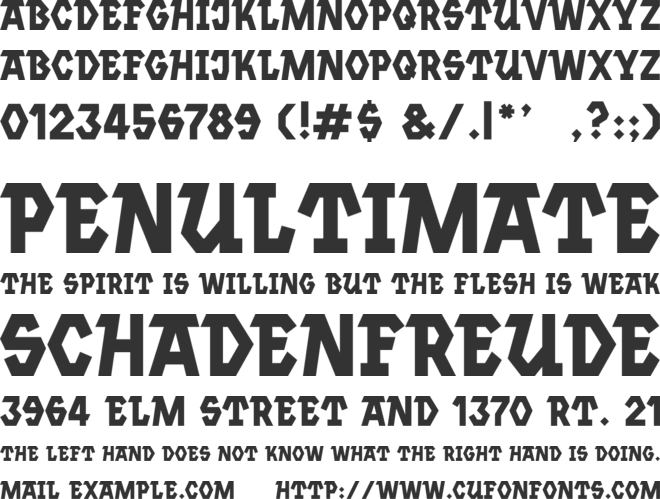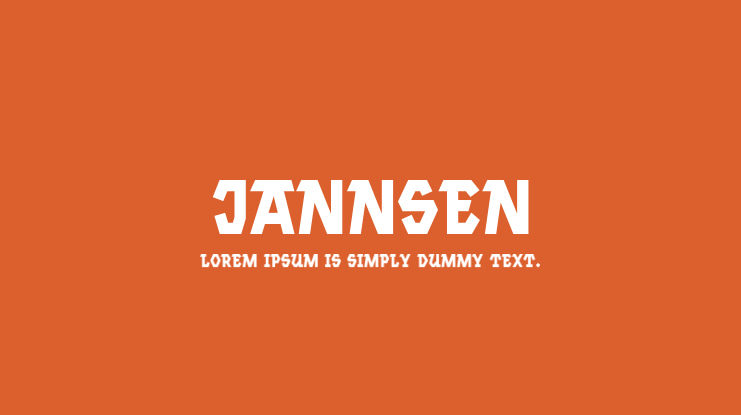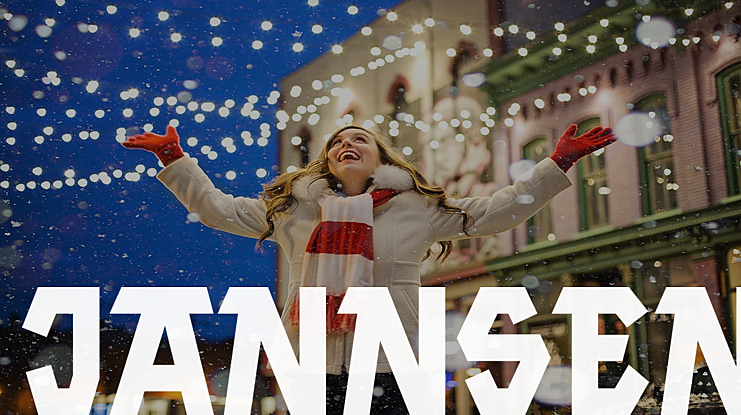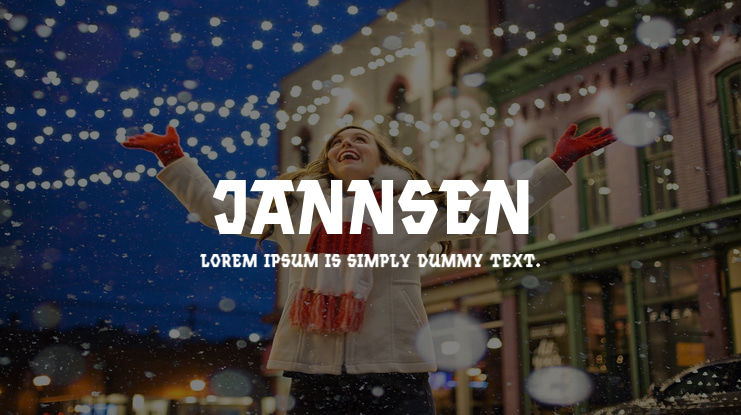
Jannsen Font
Keidi Rehe
Jannsen Font was developed from 2009 to 2011. I found inspiration for the font from Estonian font design, and it is particularly inspired by "Üldlaulupeo Teataja" title font design from the year 1949. It is named after Johann Voldemar Jannsen, who was the initiator, the main promoter and general manager of the first nation-wide song festival in Estonia. The first nation-wide song festival took place in June 1869 in Tartu, Estonia.